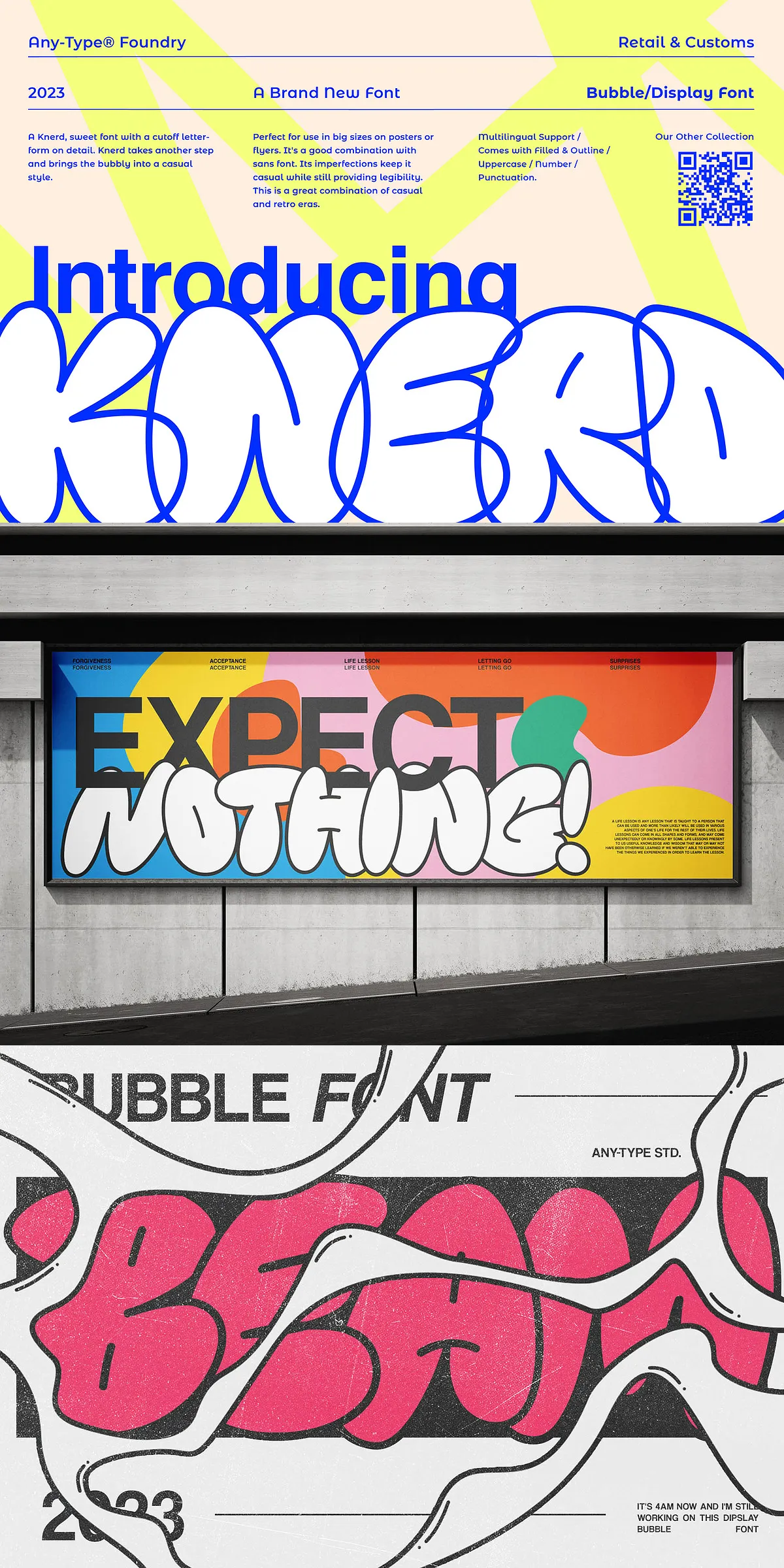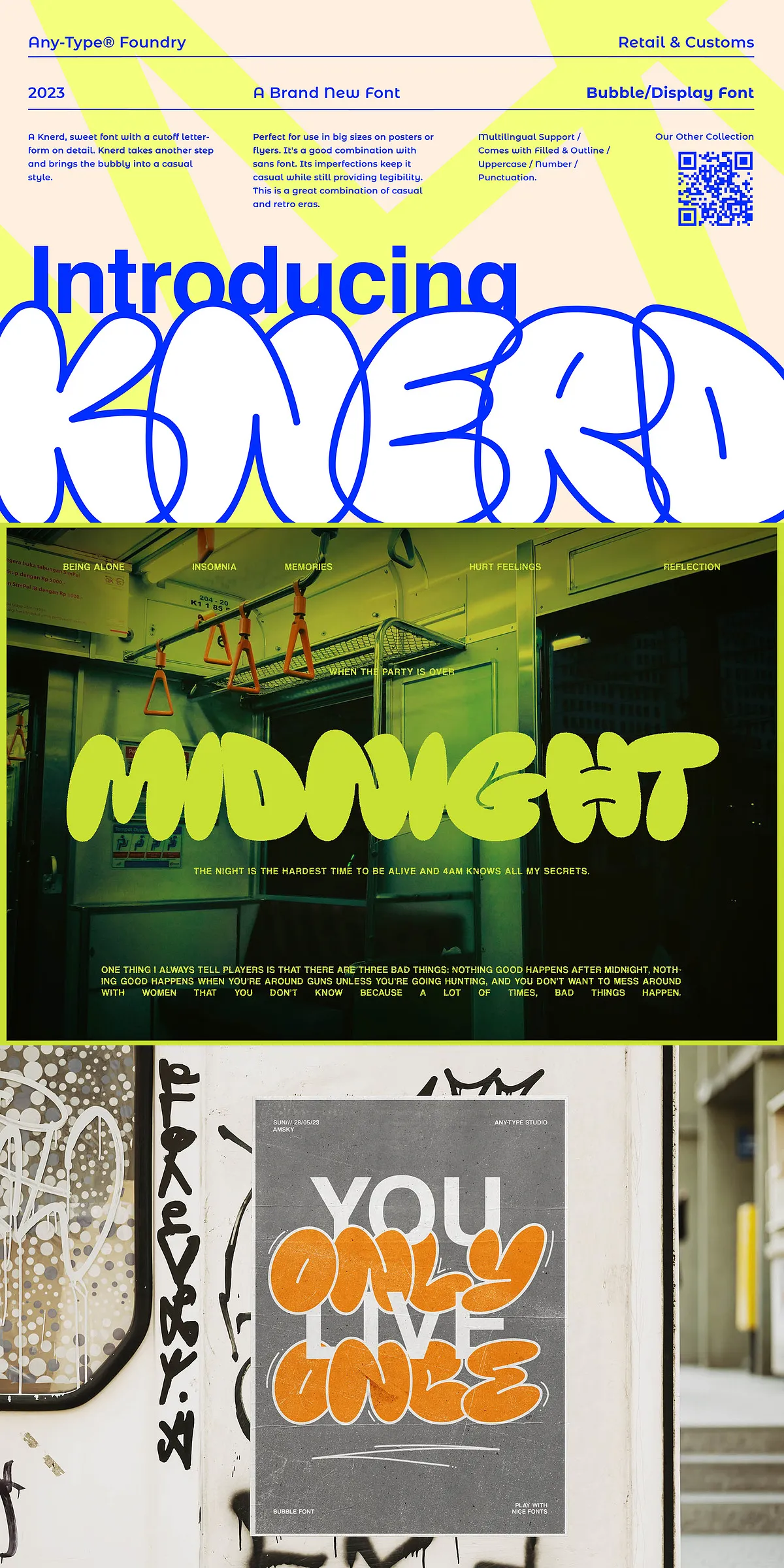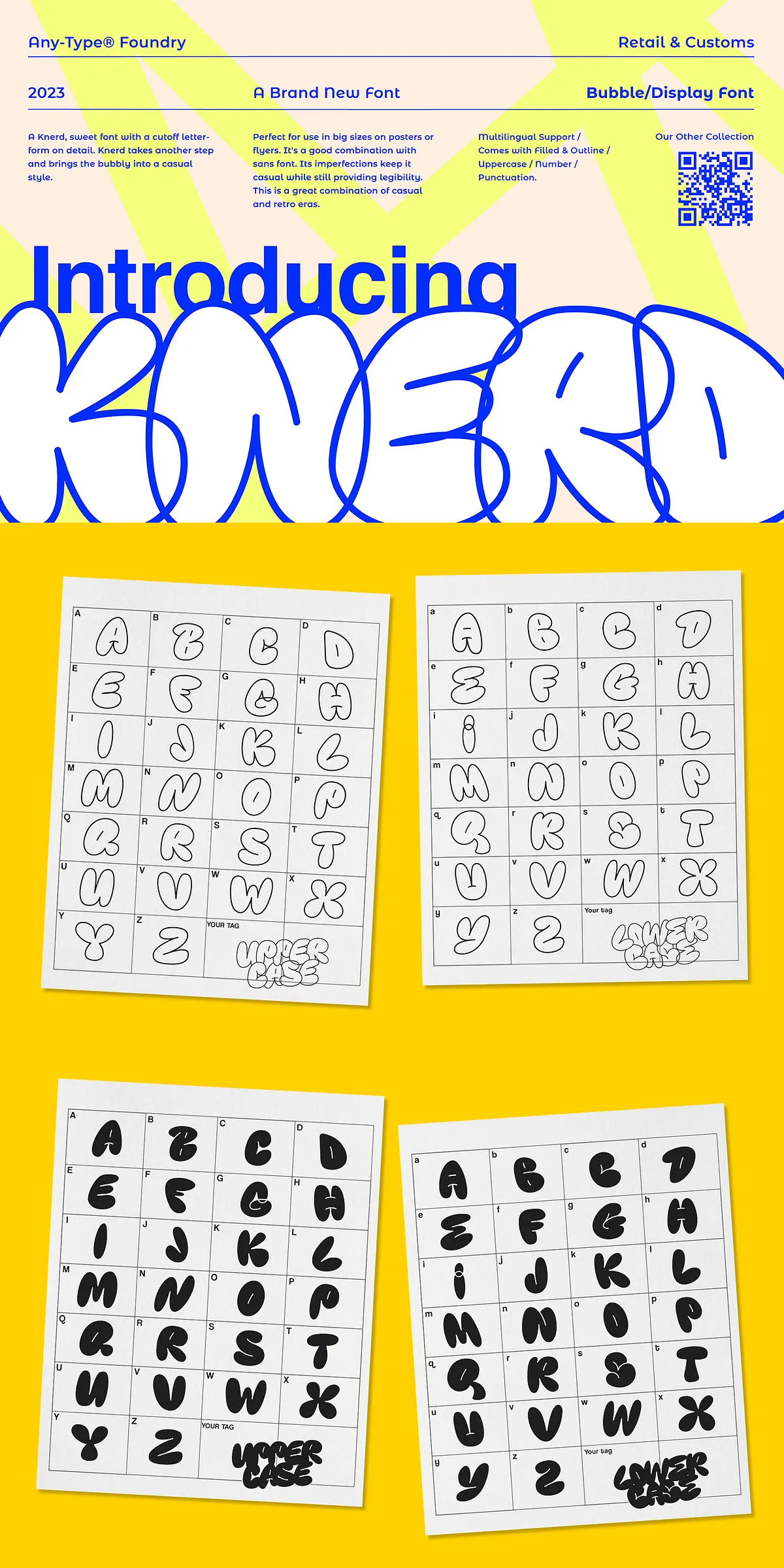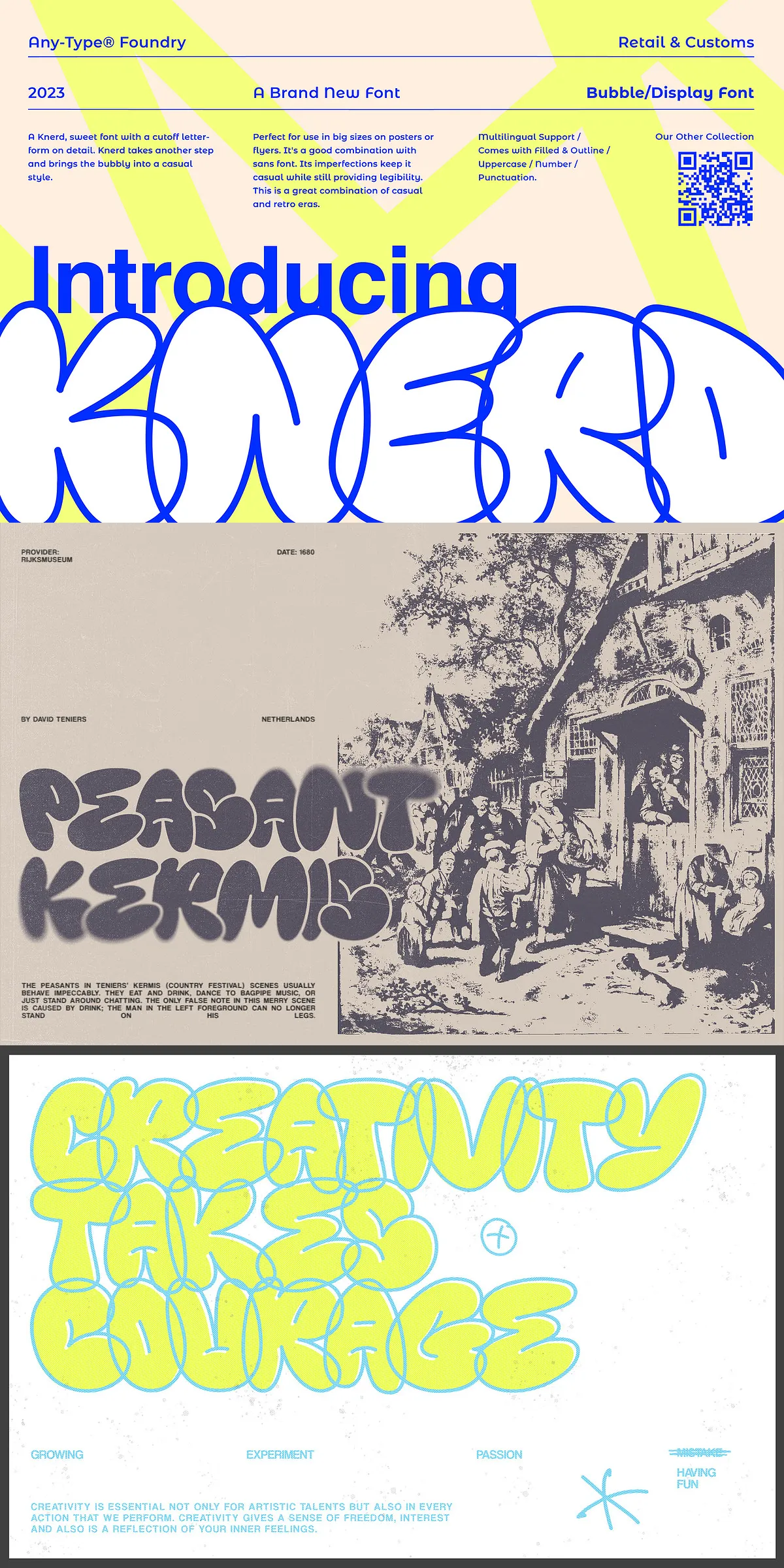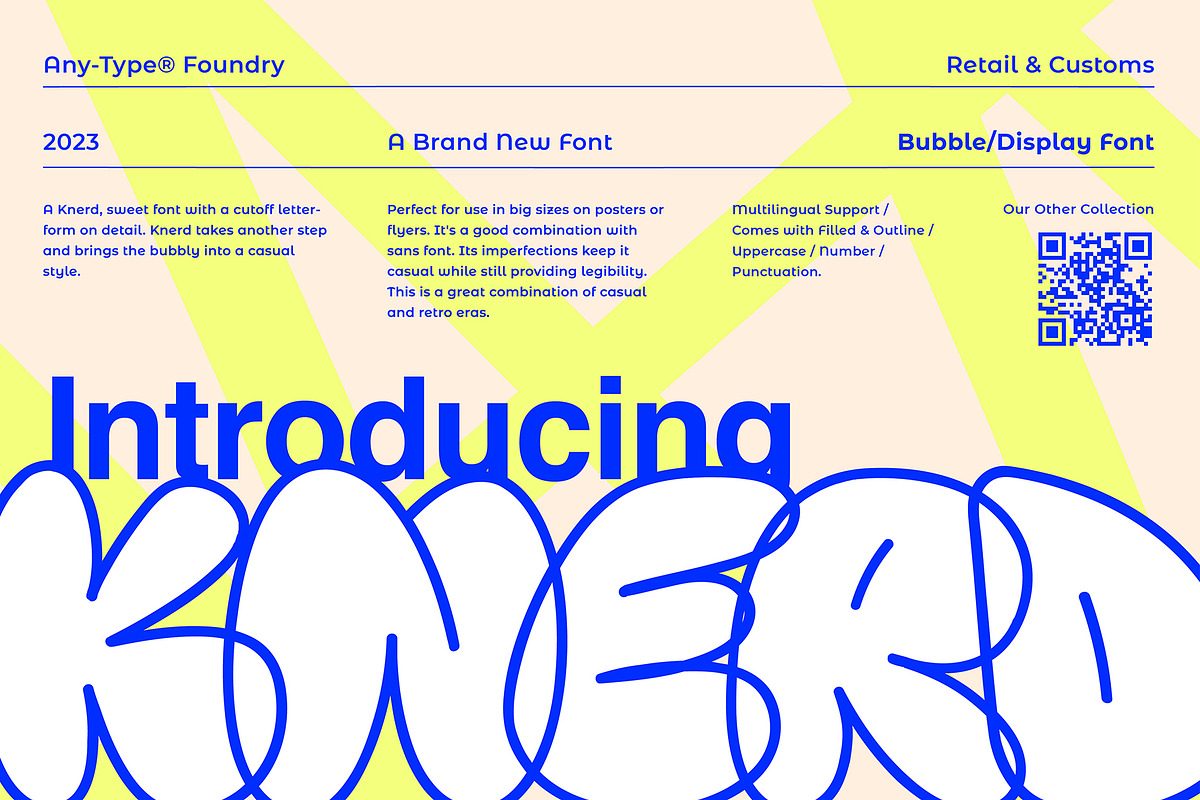
Step into a world of playful expression and effortless style with KNERD Bubble Font—a bold, rounded typeface that captures the fun spirit of graffiti culture while staying rooted in a relaxed, casual aesthetic. Designed for creators who want to break the rules with purpose, KNERD brings bubbly letters to life with a unique twist: subtle cutoff letterforms that add character, edge, and visual rhythm. This isn’t just typography—it’s a mood. A vibe. A statement of carefree creativity.
Why KNERD Bubble Font is a Creative Game-Changer
More than meets the eye, KNERD Bubble Font stands out through its intentional imperfections. Unlike overly polished fonts, its slight irregularities and softly segmented details give it a hand-drawn authenticity that feels alive and human. These charming quirks are not flaws—they’re features. They keep the design grounded in the casual world of street art, while still maintaining sharp legibility, especially when used at large sizes.
Feature-Packed for Real-World Design Use
- Full Case Support: Includes both uppercase and lowercase letters (all caps option available), giving designers complete control over message tone and structure.
- Two Distinct Styles: Choose between Filled for bold, solid impact, or Outline for a lighter, more open aesthetic—ideal for layering and creative masking effects.
- True Multilingual Support: Fully supports international characters, making it perfect for global projects, bilingual branding, or multilingual content.
- Complete Character Set: Includes numbers, punctuation, and special symbols—no missing pieces when you’re crafting full messages, labels, or signage.
No matter your design challenge, KNERD adapts. Whether you’re creating a vibrant concert flyer, a cheeky brand tagline, or a motivational poster, this font adds instant personality and visual pop.
Ideal Applications for the Retro-Casual Aesthetic
From streetwear to lifestyle branding, KNERD Bubble Font thrives in dynamic, expressive contexts that value fun and authenticity. Its retro charm pairs beautifully with modern minimalism, making it a designer favorite for strategic contrast.
- Posters & Flyers: Command attention with large-scale messaging that feels energetic and approachable.
- Lifestyle & Fashion Brands: Infuse product packaging, social media graphics, and campaign visuals with a cool, youthful edge.
- Music & Events: Perfect for concert announcements, festival branding, or music releases aiming for a bold, edgy look.
- Pairing Powerhouse: Brilliantly complements sans-serif fonts—use KNERD for headlines and a clean sans-serif for body text to balance playfulness with clarity.
- Personal & Creative Projects: From journals to zines, KNERD brings whimsy, rhythm, and visual interest to every page.
Dare to Be Different: The KNERD Mindset
KNERD Bubble Font is more than a typeface—it’s an attitude. It rejects perfection. It embraces the “good enough” that’s actually great. If your design needs to feel real, unfiltered, and full of life, this is the font you’ve been searching for. It’s not for the corporate rigid—this is for the rule-breakers, the dreamers, and the creators who paint with words.